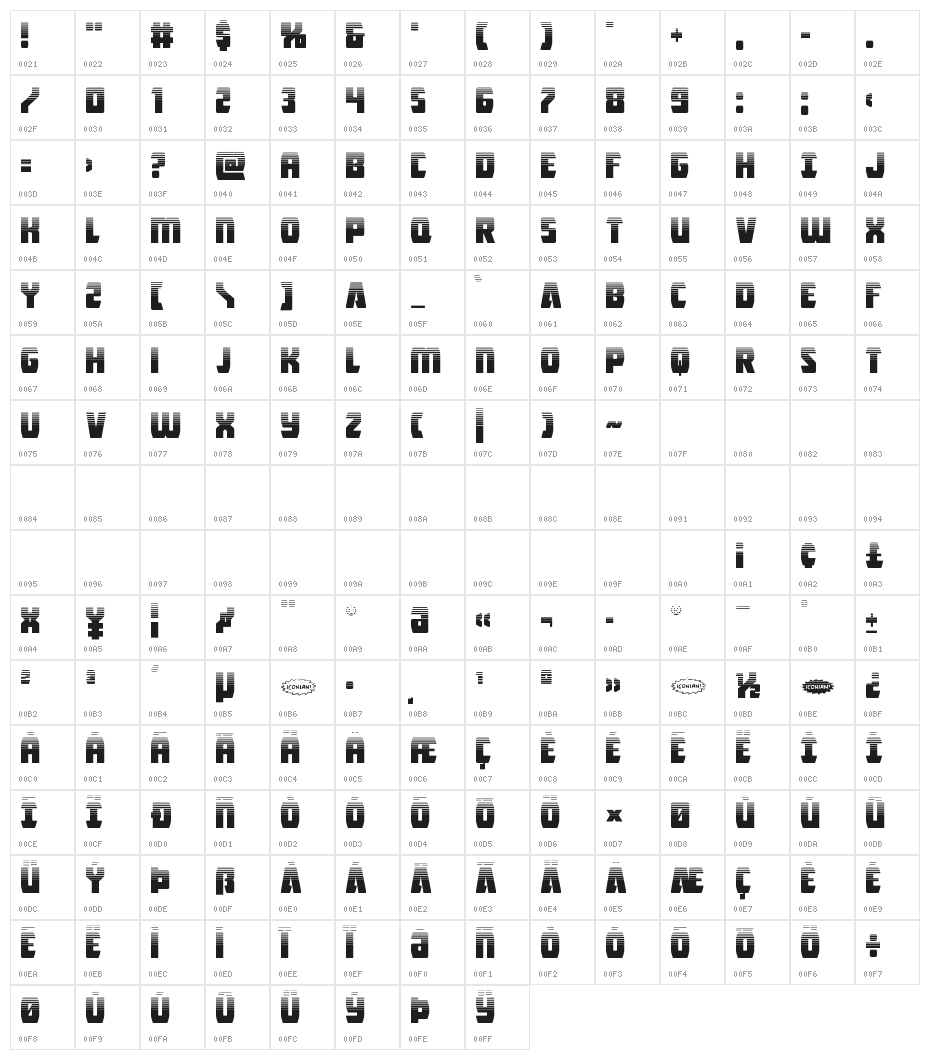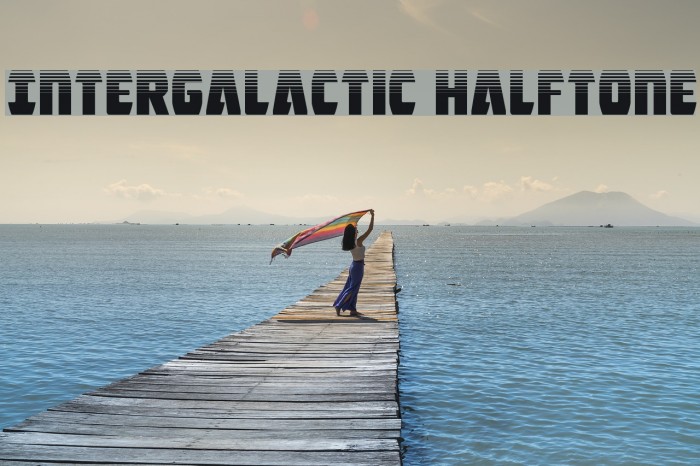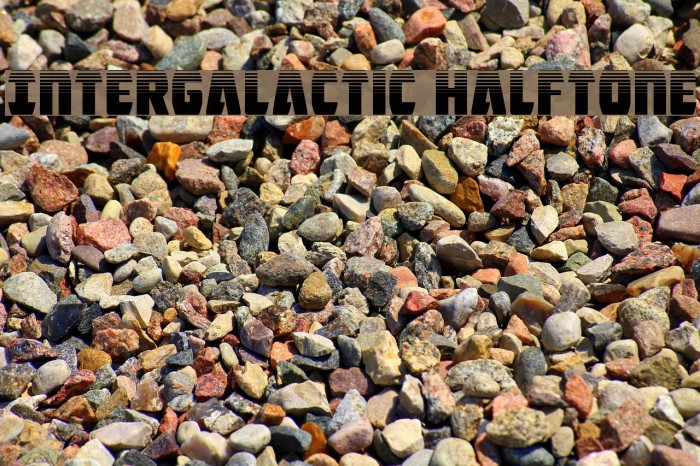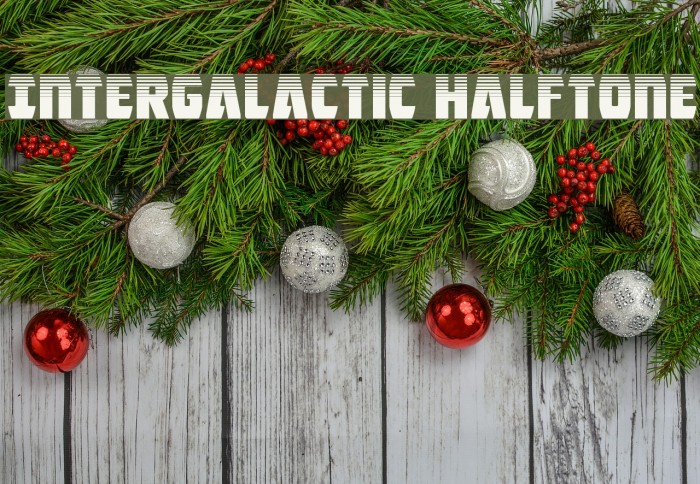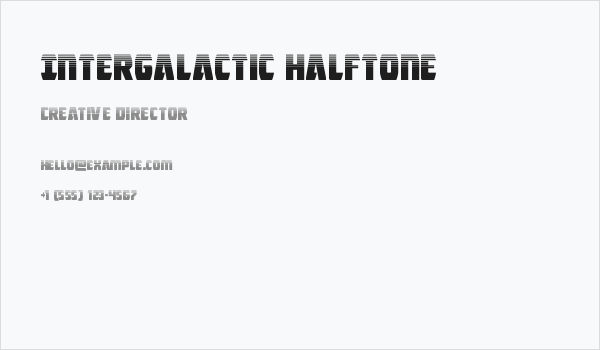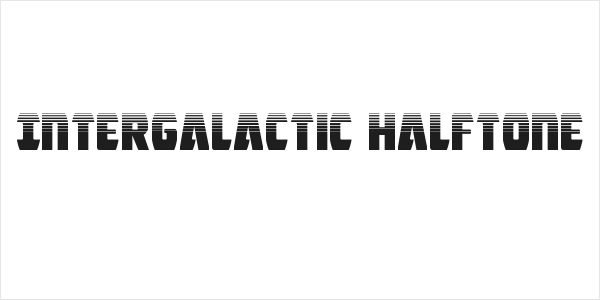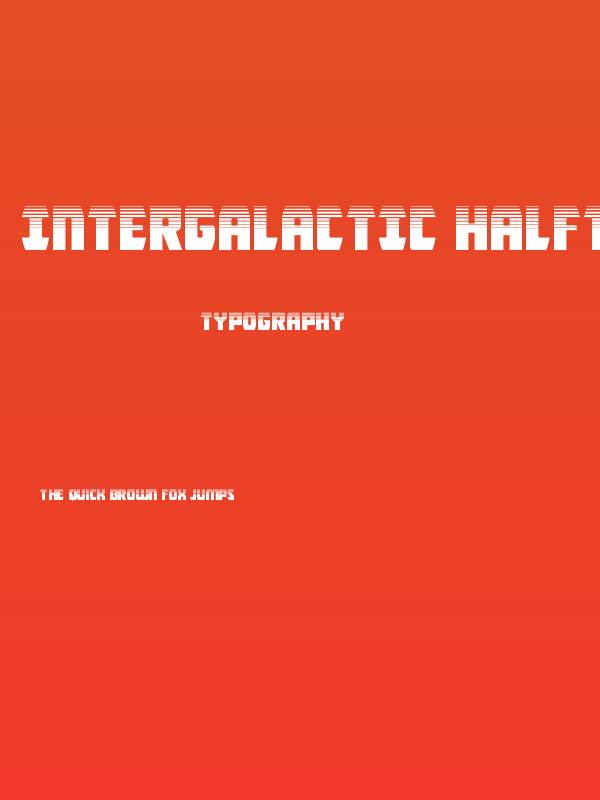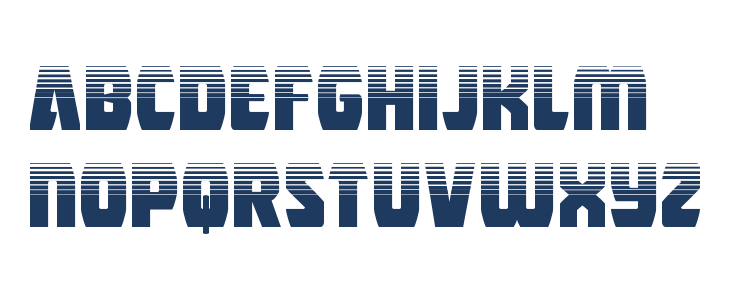
Intergalactic Halftone Font
Intergalactic Halftone Description
This font features a bold and futuristic design with a halftone effect that creates a sense of movement and energy. The characters are blocky and geometric, with horizontal lines cutting through the upper portion of each letter, giving it a unique, intergalactic appearance. The design is consistent across uppercase, lowercase, numbers, and special characters, maintaining a cohesive look. The boldness of the font makes it stand out, while the halftone effect adds a layer of complexity and visual interest. This font is perfect for projects that require a modern and dynamic aesthetic.
| Overall Style | Futuristic, Modern |
| Proposed Projects | Ideal for sci-fi themed posters, video game titles, futuristic branding, and technology-related graphics. |